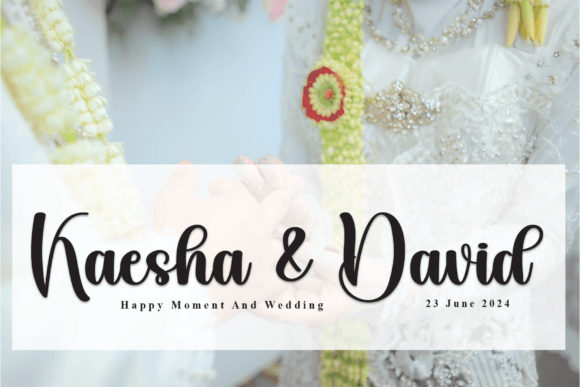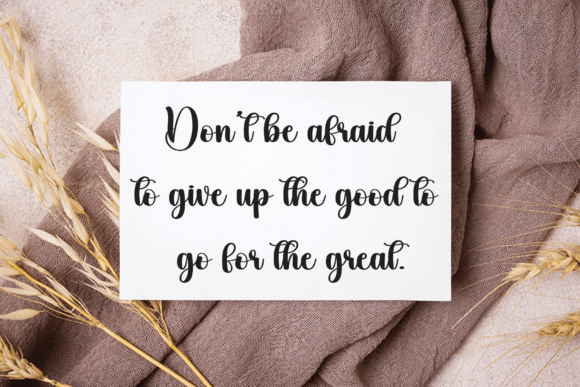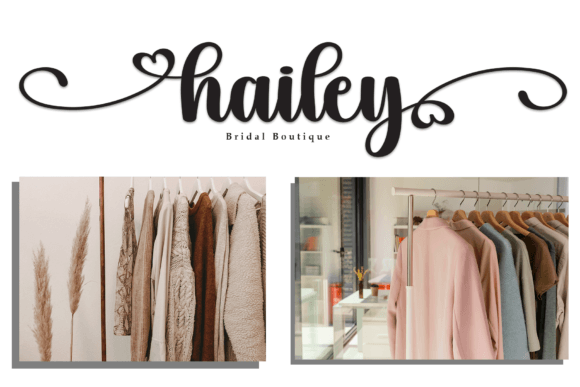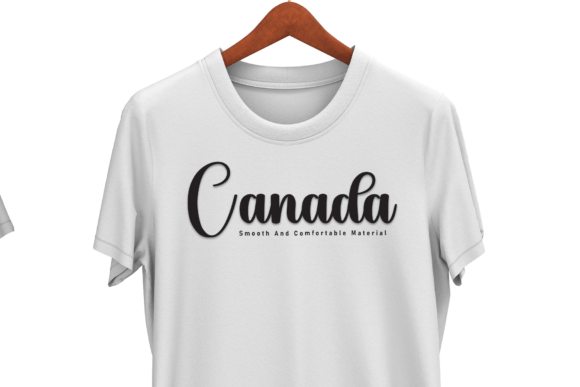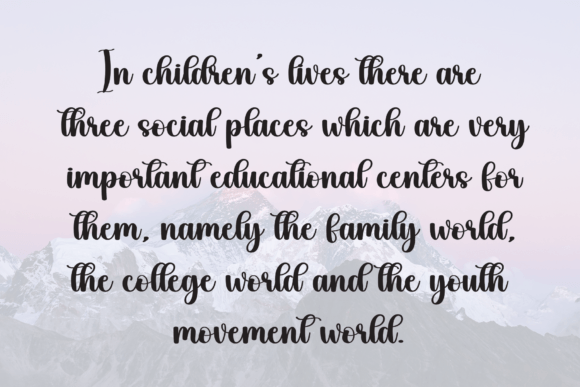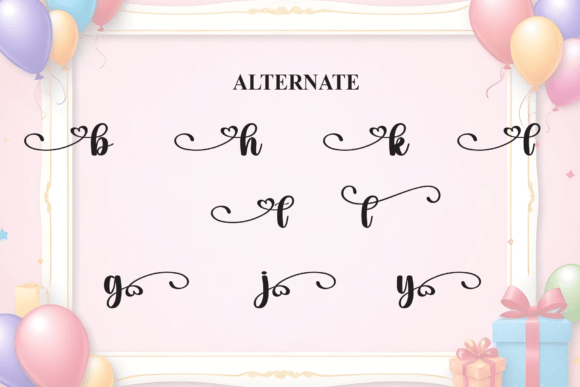
Introducing Birthday Font: The Sweet and Friendly Handwritten Font for Your Designs
Are you looking for a font that can add a personal touch to your designs? Do you want to create something that feels warm, friendly, and approachable? Look no further than Birthday Font, a beautiful handwritten font that’s perfect for a wide range of design projects. In this article, we’ll take a closer look at Birthday Font, its features, and how you can use it to take your designs to the next level.
What is Birthday Font?
Birthday Font is a sweet and friendly handwritten font that’s designed to bring a touch of warmth and personality to your designs. Its natural and unique style makes it incredibly fitting to a large pool of designs, from birthday cards and invitations to branding and packaging. The font’s creator has carefully crafted each letter to ensure that it feels approachable, yet sophisticated, making it perfect for designers and crafters who want to create something special.
So, what makes Birthday Font so special? Here are just a few of its key features:
- Handwritten style: Birthday Font has a beautiful, handwritten style that’s perfect for creating personal and heartfelt designs.
- Natural and unique: The font’s natural and unique style makes it stand out from more traditional fonts, giving your designs a touch of personality.
- Versatile: Birthday Font is incredibly versatile, making it perfect for a wide range of design projects, from digital designs to print materials.
- Easy to read: Despite its handwritten style, Birthday Font is easy to read, making it perfect for body text and headlines.
How to Use Birthday Font in Your Designs
So, how can you use Birthday Font in your designs? The possibilities are endless! Here are just a few ideas to get you started:
- Birthday cards and invitations: Create personalized birthday cards and invitations that feel special and unique.
- Branding and packaging: Use Birthday Font to add a touch of personality to your brand’s packaging and marketing materials.
- Digital designs: Use Birthday Font in your digital designs, such as social media graphics, blog posts, and email newsletters.
- Crafting projects: Use Birthday Font in your crafting projects, such as scrapbooking, journaling, and card making.
Tips for Getting the Most Out of Birthday Font
Here are a few tips for getting the most out of Birthday Font:
- Experiment with different colors: Try pairing Birthday Font with different colors to create a unique and eye-catching design.
- Play with font sizes: Experiment with different font sizes to create visual interest and hierarchy in your design.
- Combine with other fonts: Try combining Birthday Font with other fonts to create a unique and interesting contrast.
In conclusion, Birthday Font is a beautiful and versatile handwritten font that’s perfect for designers and crafters who want to add a personal touch to their designs. Its natural and unique style makes it incredibly fitting to a wide range of design projects, from birthday cards and invitations to branding and packaging. With its ease of use and flexibility, Birthday Font is sure to become a favorite in your design toolkit. So why wait? Download Birthday Font today and start creating your own unique and eye-catching designs!